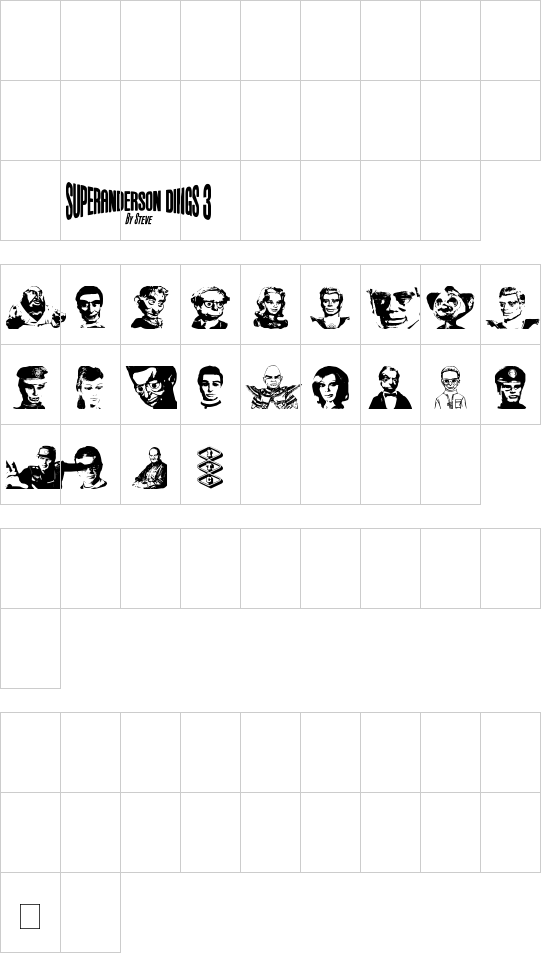
Anderson Dings 3
About Anderson Dings 3
Anderson Dings 3 is a dingbat collection of varied pictographs and decorative symbols rather than standard characters. The set gathers an assortment of small graphic shapes, each mapped to a key and drawn cleanly enough to read clearly whether used large as a feature or small as an accent.